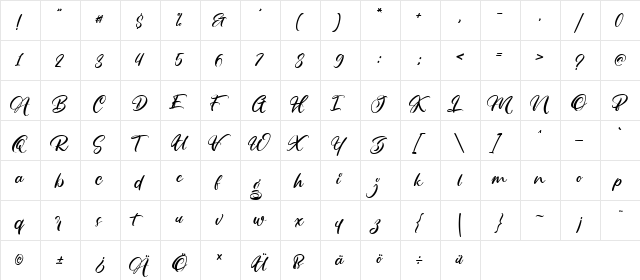
Brentley Script Regular Font Preview
Brentley Script Regular
Brentley Script Regular Font Details
Design Context for Brentley Script Typeface
Brentley Script brings a calligraphic fluidity to the page — its connecting strokes and expressive curves give it an unmistakably human quality.